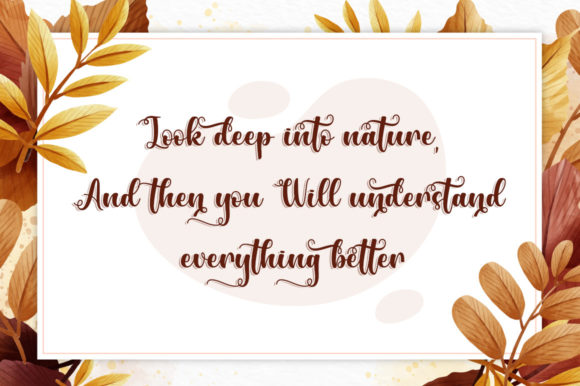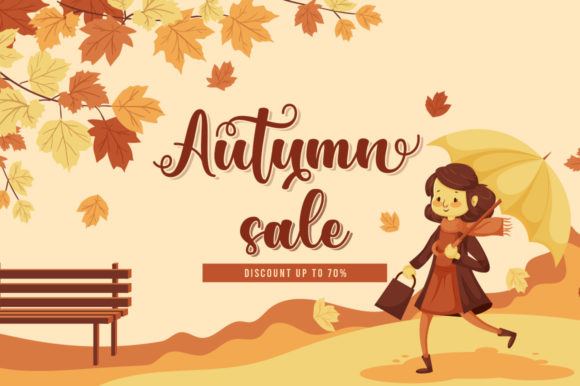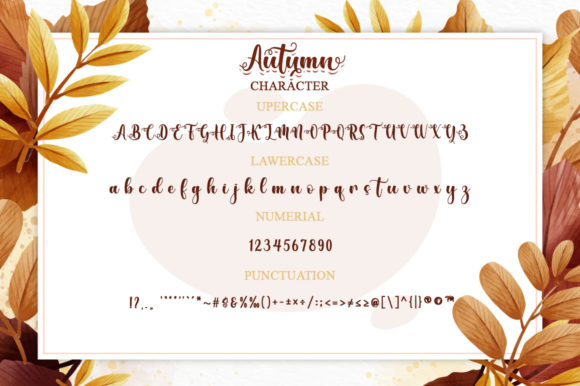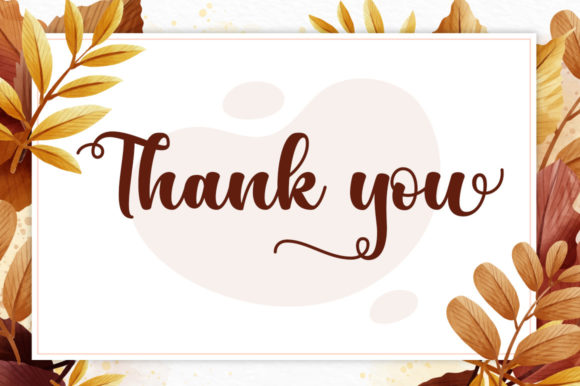
Introducing Autumn Font: Add a Touch of Whimsy to Your Designs
As the seasons change and the leaves begin to turn, designers and crafters are on the lookout for inspiration to add a warm and cozy touch to their projects. Look no further than the Autumn Font, a lovely script font that features charming, playful characters that seem to dance along the baseline. With its whimsical feel and PUA encoding, this font is sure to make your designs stand out.
The Charm of Autumn Font
Autumn Font is a beautiful script font that captures the essence of the season. Its characters are designed to be playful and charming, with a sense of movement and energy. The font features a range of glyphs and swashes that can be easily accessed thanks to its PUA (Private Use Area) encoding. This means that you can add a personal touch to your designs and make them truly unique.
Whether you’re a designer, crafter, or DIY enthusiast, Autumn Font is the perfect addition to your creative toolkit. The font’s playful and whimsical feel makes it ideal for a range of projects, from:
• Invitations and greeting cards
• Signs and banners
• Crafting and scrapbooking projects
• Branding and packaging design
Key Features of Autumn Font
So what makes Autumn Font so special? Here are just a few of its key features:
• PUA Encoding: Easily access all glyphs and swashes with PUA encoding, making it simple to customize your designs.
• Playful Characters: Charming, playful characters that seem to dance along the baseline, adding a touch of whimsy to your designs.
• Script Font: A beautiful script font that’s perfect for adding a personal touch to your projects.
• Wide Range of Uses: Suitable for a range of creative projects, from invitations and signs to social media graphics and crafting projects.
Tips for Using Autumn Font
To get the most out of Autumn Font, here are a few tips to keep in mind:
• Experiment with Different Sizes: Autumn Font looks great in a range of sizes, from small and delicate to large and bold.
• Mix and Match Glyphs: Use the font’s glyphs and swashes to add visual interest and create unique designs.
• Pair with Other Fonts: Combine Autumn Font with other fonts to create a unique and eye-catching look.
• Have Fun: Don’t be afraid to get creative and try new things – Autumn Font is all about adding a touch of whimsy to your designs!
Autumn Font is a beautiful and versatile script font that’s perfect for designers, crafters, and DIY enthusiasts. With its charming, playful characters and PUA encoding, it’s easy to add a touch of whimsy to your designs and make them stand out. Whether you’re working on a creative project or just looking for inspiration, Autumn Font is a great choice. So why not give it a try and see what amazing designs you can create?